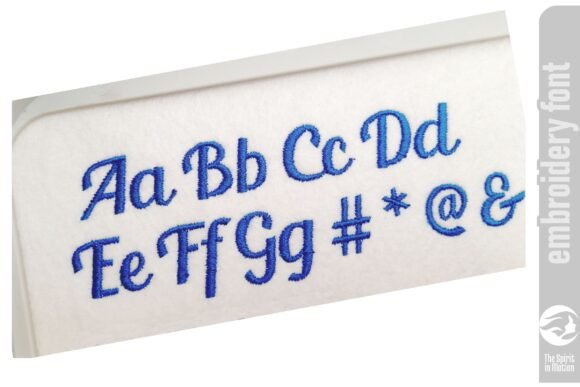
Blenda Script Font Medium
Introducing Blenda Script – a chic and robust script embroidery font. Bedecked with sleek satin stitches, this font radiates an air of grace and fortitude. Its flowing design becomes an ideal choice for imprinting a unique persona onto clothing, accessories, and even home décor. With every smooth curve and line, Blenda adds a contemporary and refined allure to your embroidery endeavors, ensuring your project leaves a lasting impression.